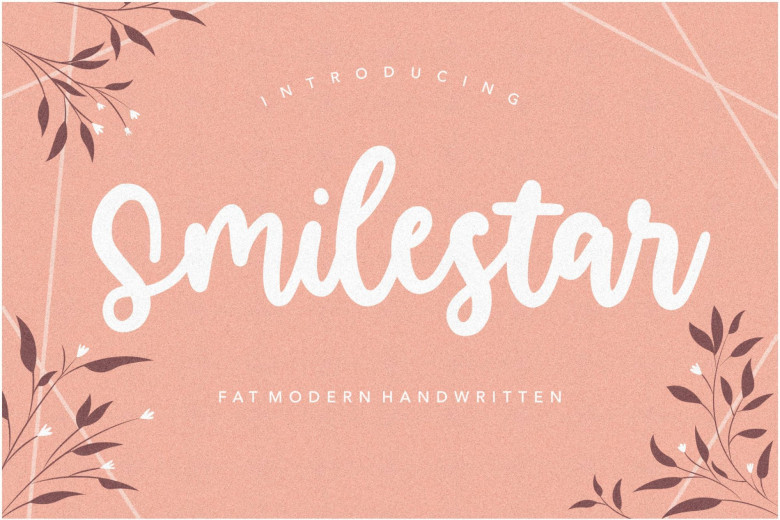
Smilestar Bold Handwritten Font
Smilestar Bold Handwritten Font is a wonderful script typeface with a unique, detailed and handmade look. These fonts looks amazing in all caps with a wide-set spacing if you want to try a classy look, or beautiful on its own in capital and lowercase letters for something completely timeless.